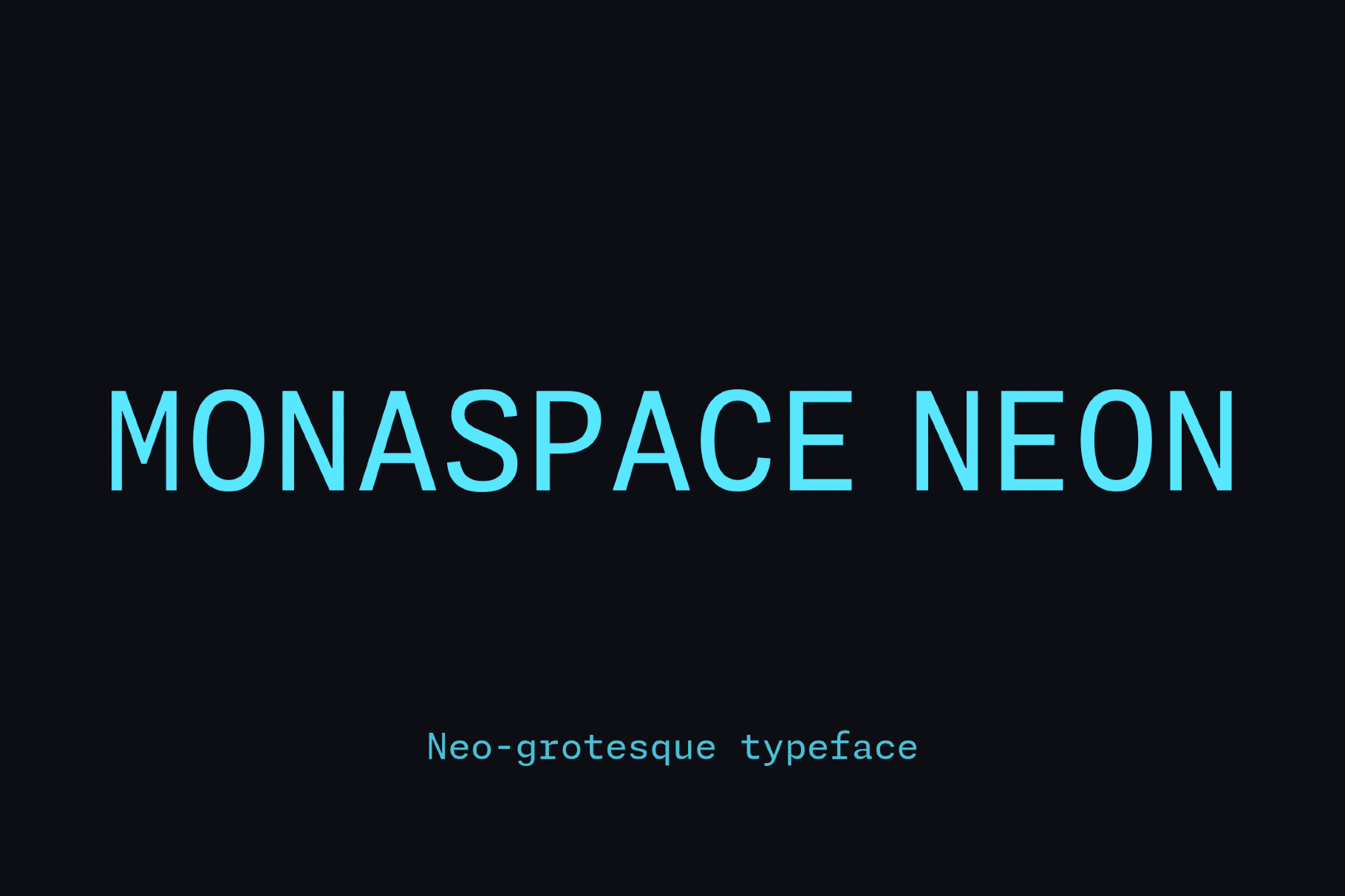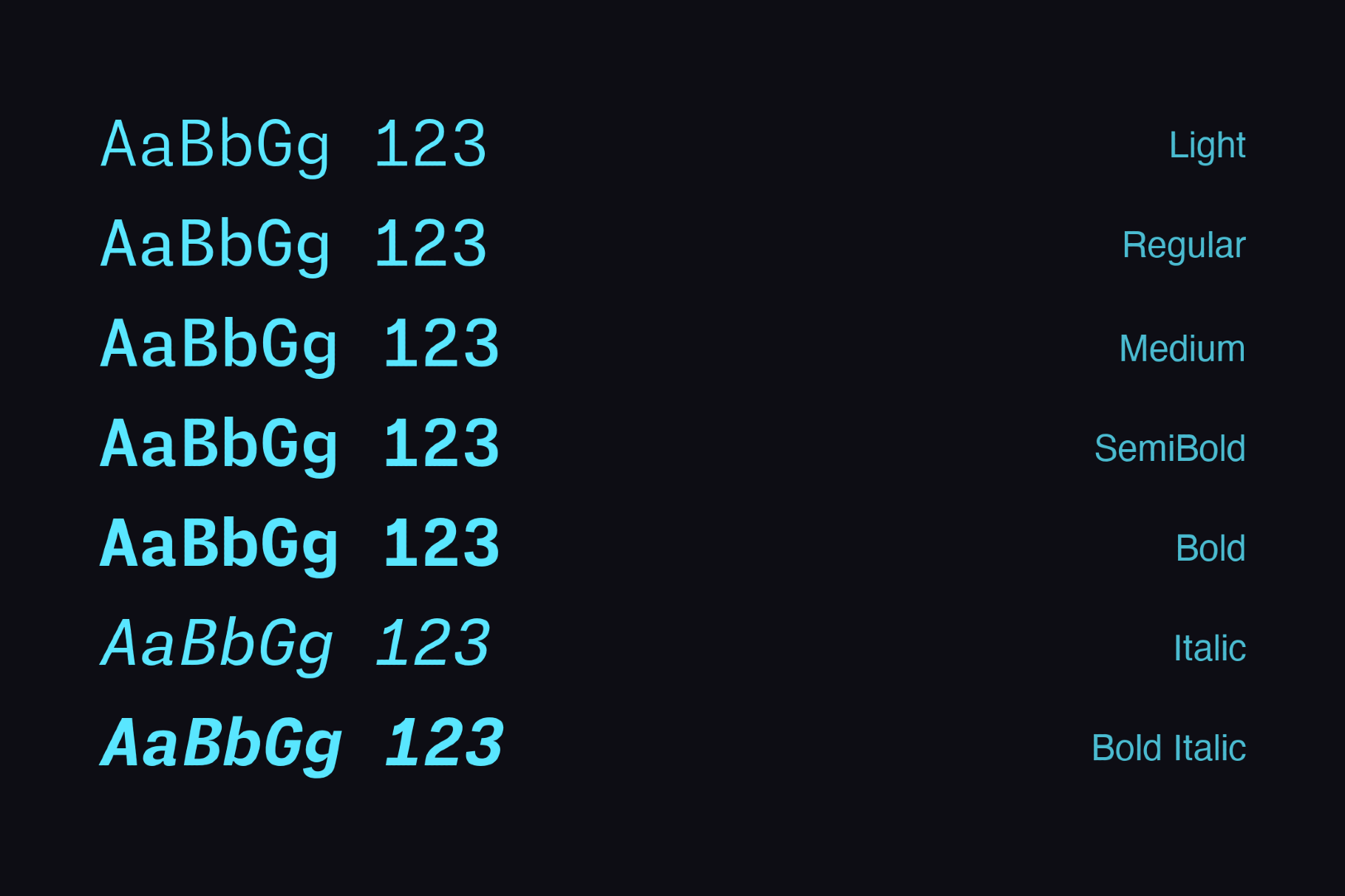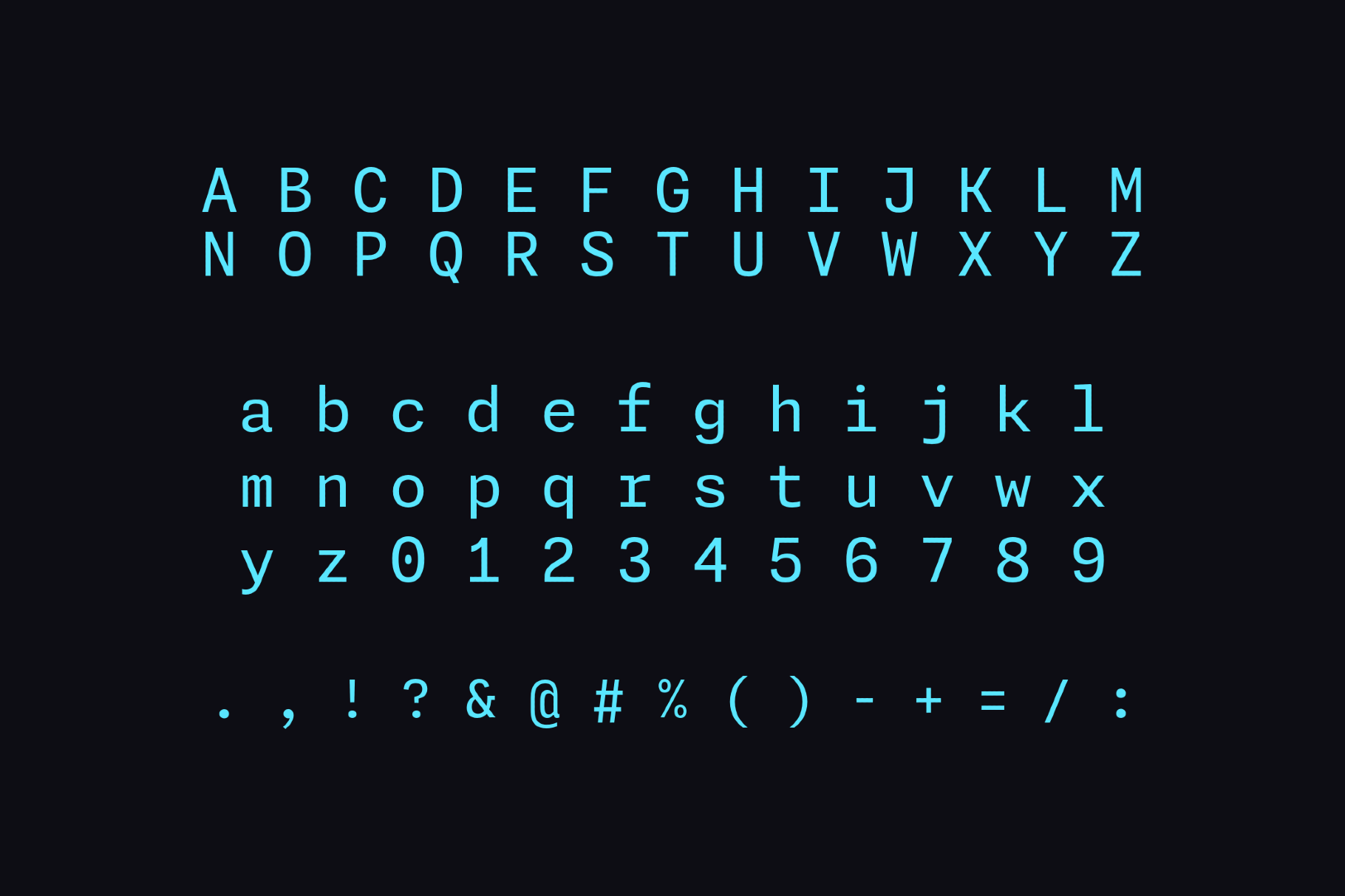
Monaspace Neon Font Family
Monaspace Neon pushes the letterforms toward a clean, grotesque-leaning voice built for interfaces that want to read as digitally native. Texture healing and coding ligatures carry over from the wide Monaspace system, keeping tight symbol pairs visually balanced across every weight.
• variable weight and width axes, with matching italics;
• uppercase and lowercase letters, numbers, punctuation, and symbols;
• texture healing and coding ligatures across multiple stylistic sets;